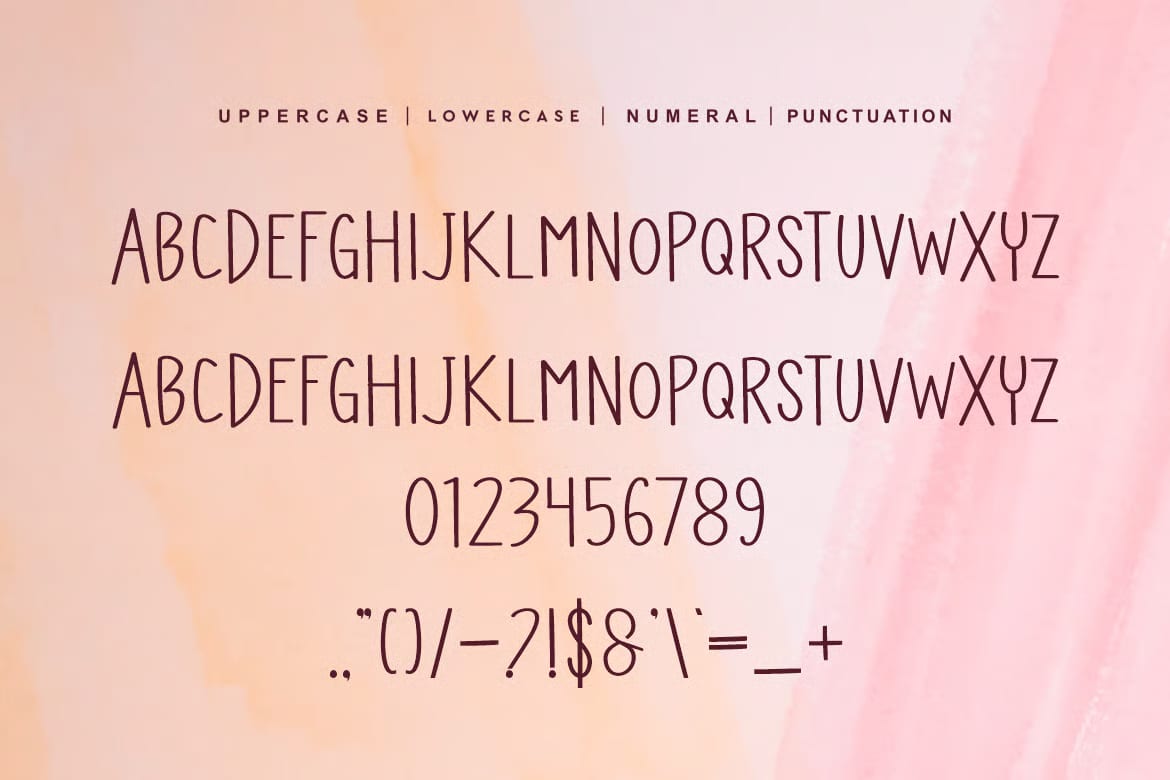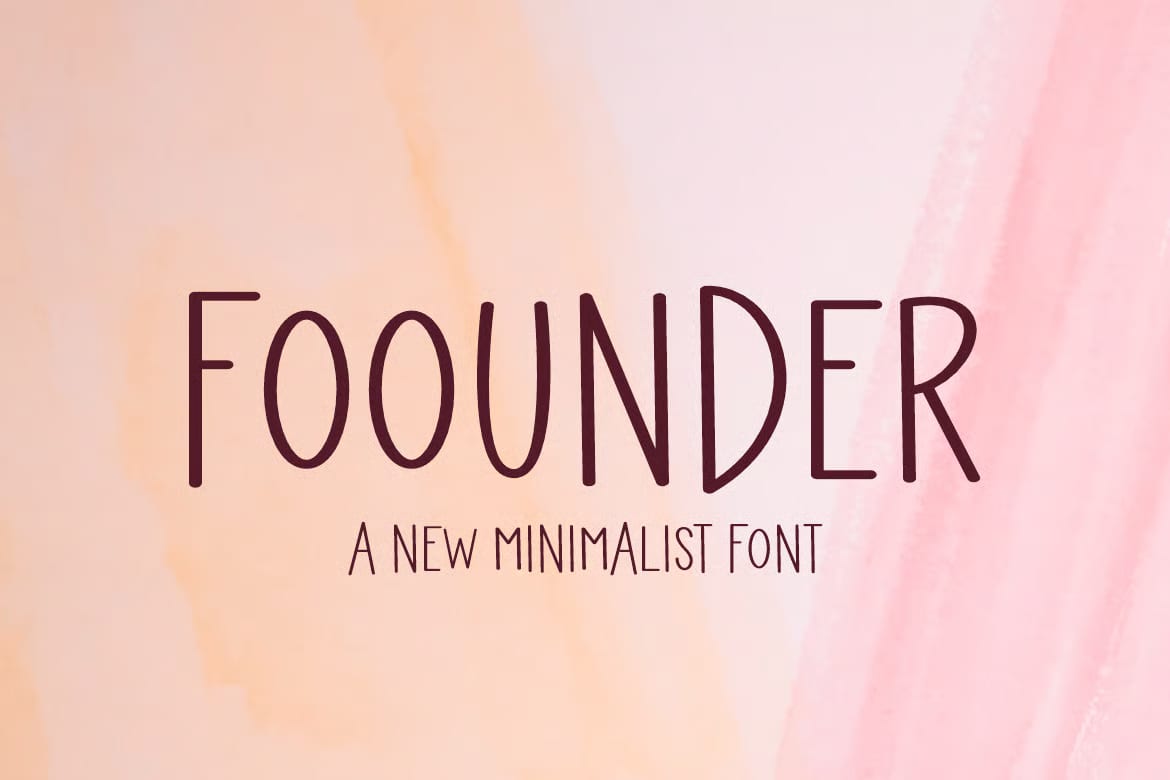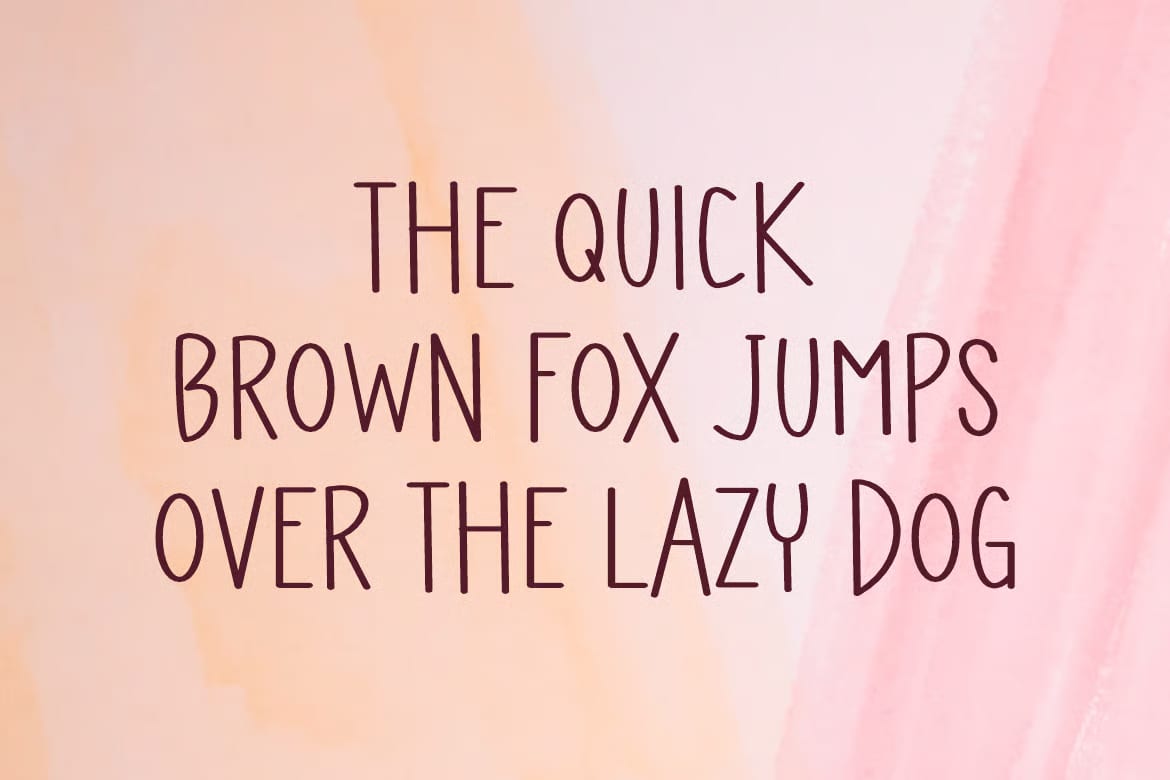
This free font has a unique look that works well when you want text to stand out. It can be a good choice for design projects where the lettering itself plays a big role, such as labels, posters, movie titles, gig artwork, album covers, and logo ideas.
The style feels creative and versatile, so it can fit a range of visual themes without needing much extra decoration. Whether you are building something bold for display or looking for a font with more personality than a standard text face, this one gives you a solid starting point.
It is made for everyday design use and can be dropped into both personal and creative projects where a distinctive type style is needed. If your layout needs lettering that adds character right away, this font is easy to work with and simple to use across different kinds of graphics.